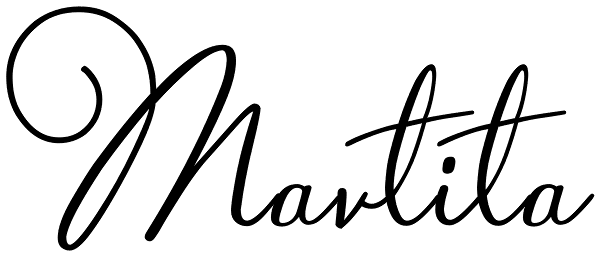
Martita
Martita is an elegant, handwritten, fully connected script with ligatures to help with flow and readability. Martita can be used for invitations, greeting cards, posters, advertising, weddings, books, menus etc. Language support includes Western...
Martita
Martita Extra